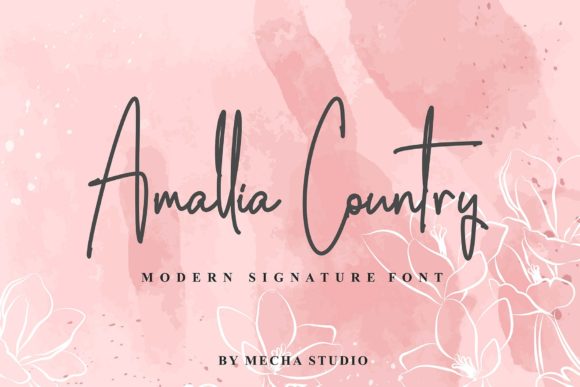
The Elegance of Amalia Country Font: A Designer’s Delight
I’ll never forget the time I was working on a logo design project for a high-end boutique hotel. I had a clear vision of the aesthetic I wanted to achieve – elegant, sophisticated, and inviting. But, as I scrolled through my font library, I just couldn’t find the right fit. That was until I stumbled upon Amalia Country Font. ✨
This beautiful script font has been a game-changer for me, and I’m excited to share my experience with you. In this article, we’ll dive into the world of Amalia Country Font, exploring its features, uses, and some helpful tips and tricks.
An Honest Review of Amalia Country Font
- ✨ Elegant and sophisticated design that’s perfect for high-end branding and luxury projects
- 💫 Beautifully crafted to add a touch of warmth and personality to your designs
- 🎨 Versatile and adaptable to various design styles and industries
While Amalia Country Font is an excellent choice for many projects, there are a few things to keep in mind: 🤔
- ⚠️ Some users may find the font a bit too ornate for very casual or playful designs
- ⚠️ As with any script font, it may not be the best choice for very long blocks of text
- Experiment with OpenType features, such as ligatures and stylistic alternates, to add more personality to your text
- Explore the font’s glyphs and OpenType features, such as swashes and alternates, to add more flair to your designs
The Story Behind Amalia Country Font
Amalia Country Font was designed with the goal of creating a beautiful, elegant script font that would add a touch of sophistication to any design. Inspired by traditional calligraphy and handwritten scripts, this font is perfect for designers and crafters looking to add a personal touch to their work.
Q: Is Amalia Country Font suitable for body text?
A: While Amalia Country Font is beautiful and elegant, it’s generally recommended for use in headings, titles, and short blocks of text. For longer blocks of text, a more traditional serif or sans-serif font might be more suitable.